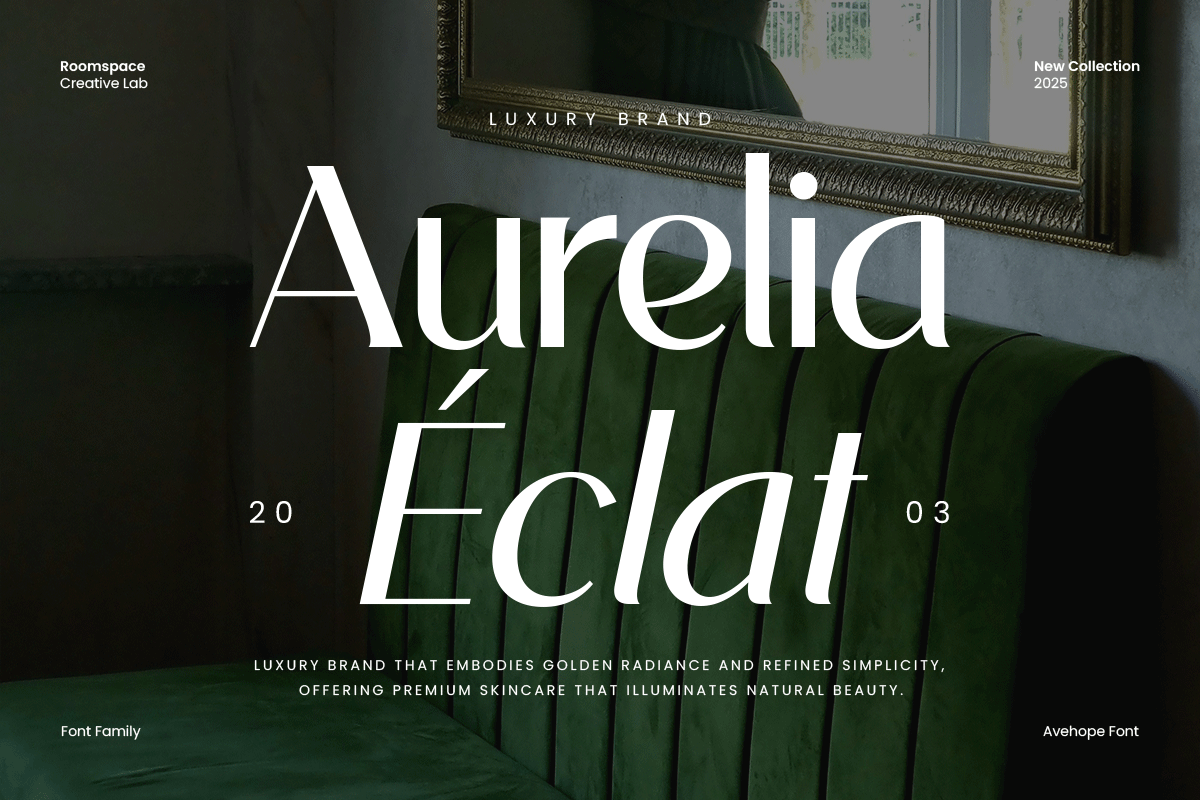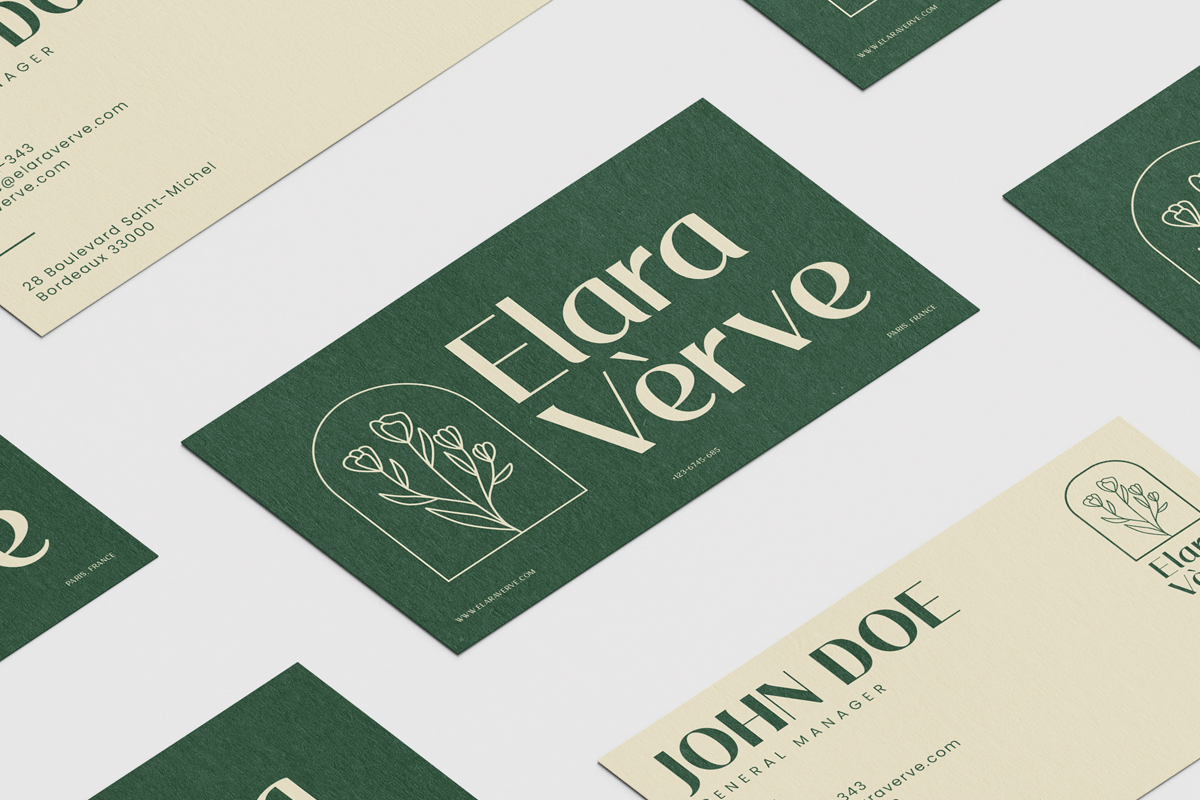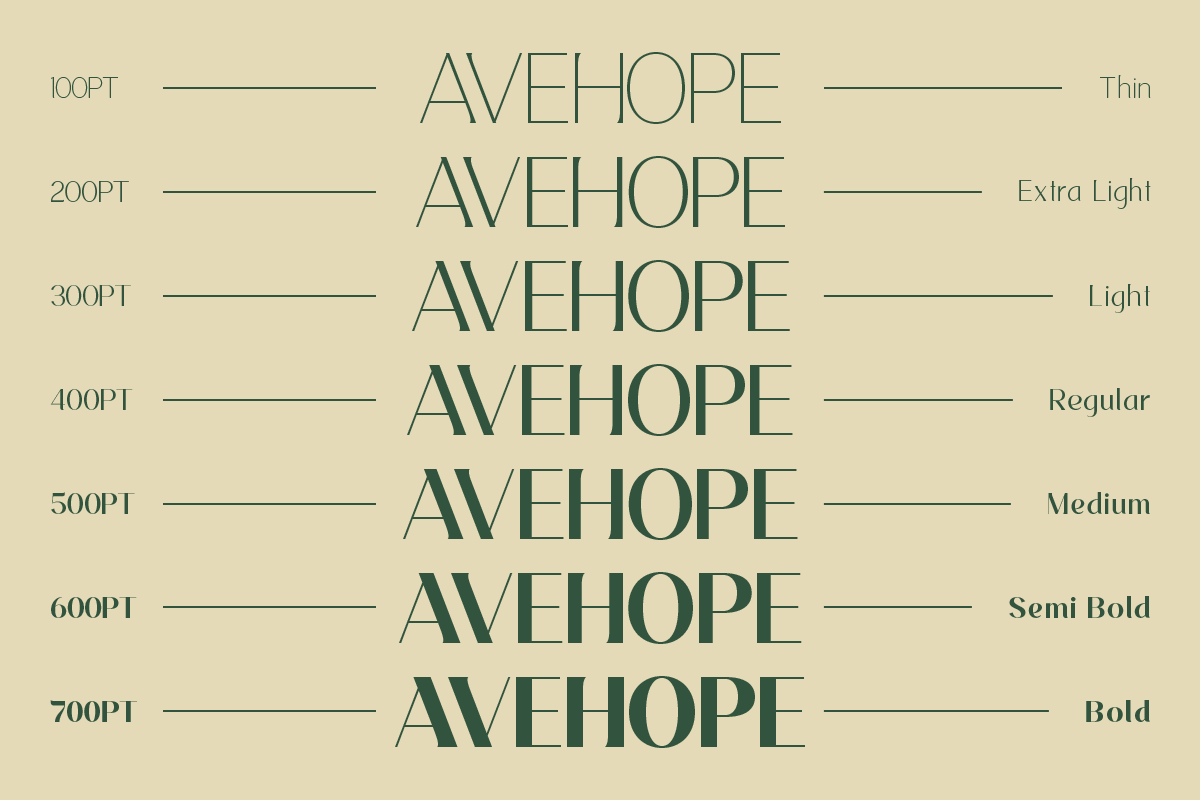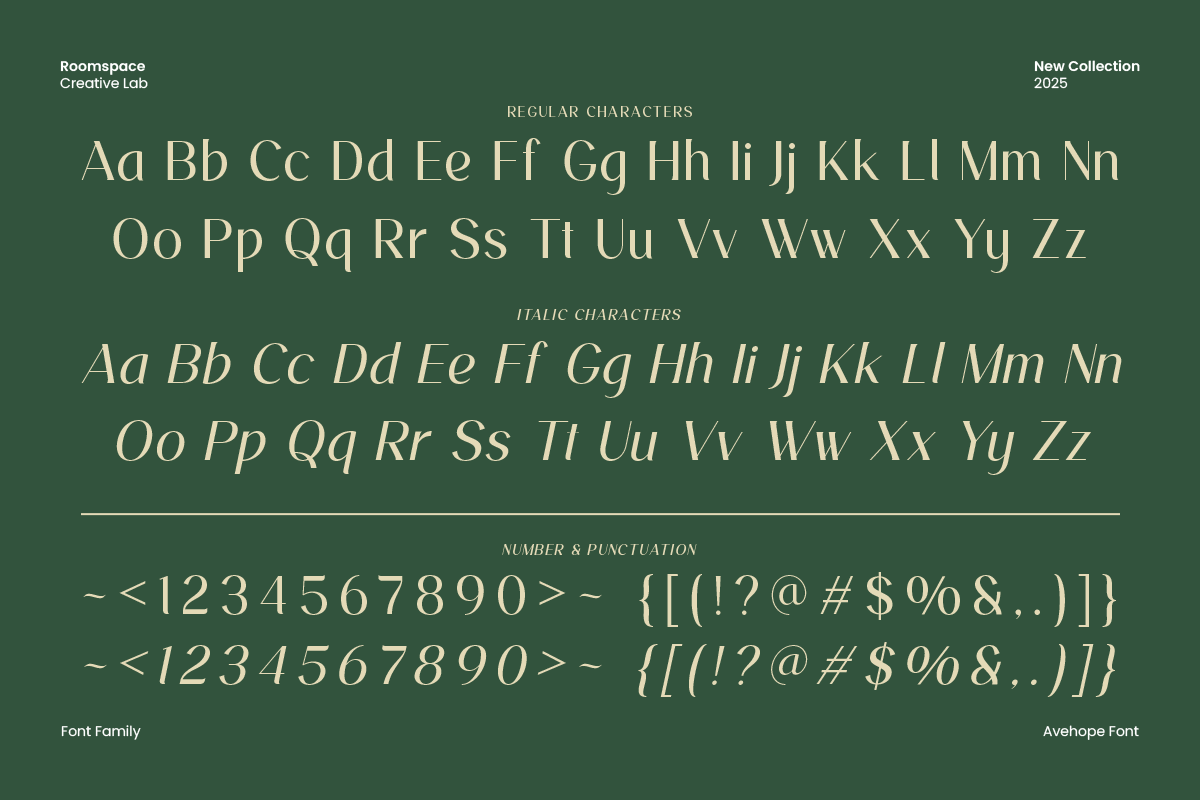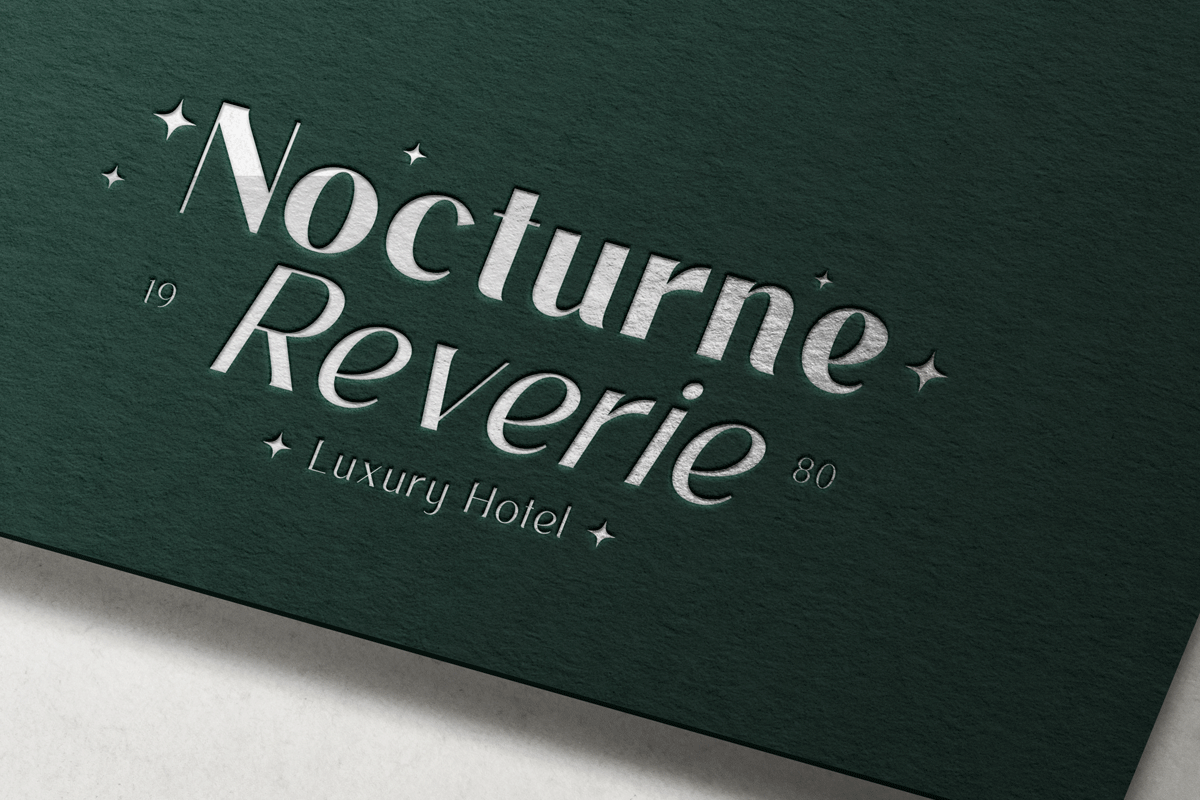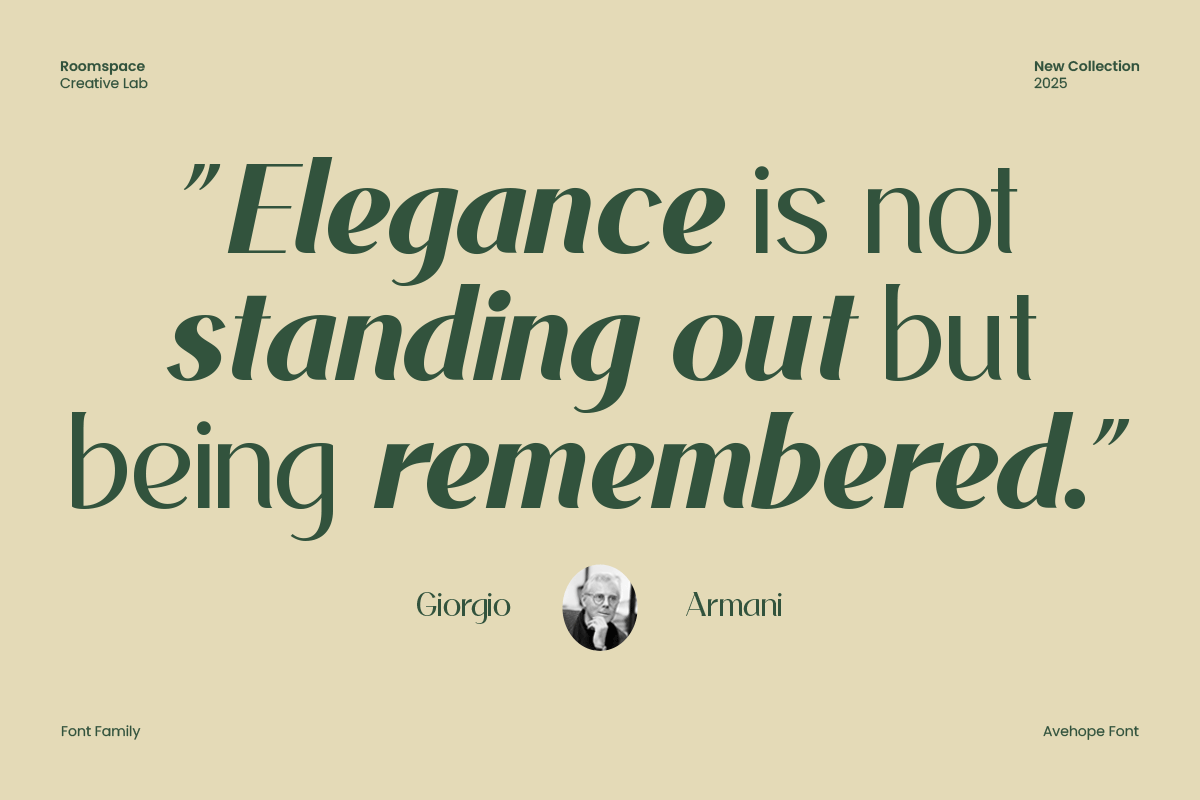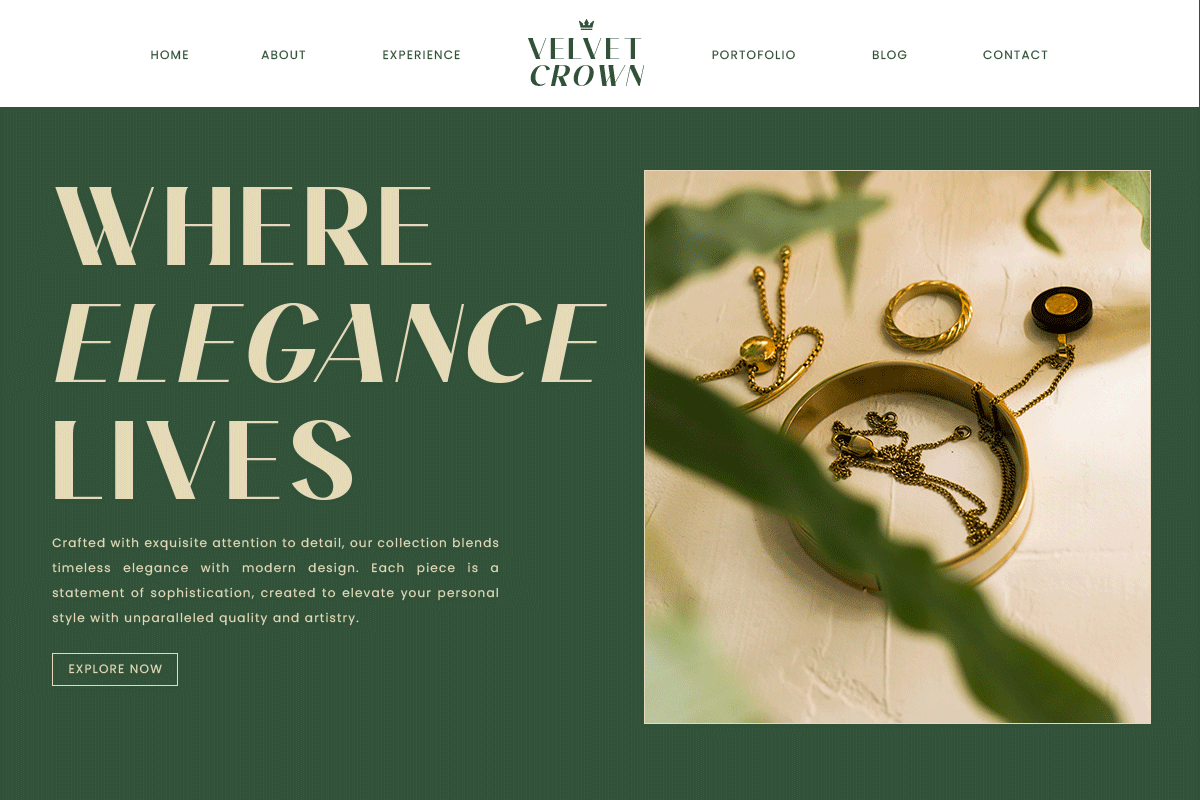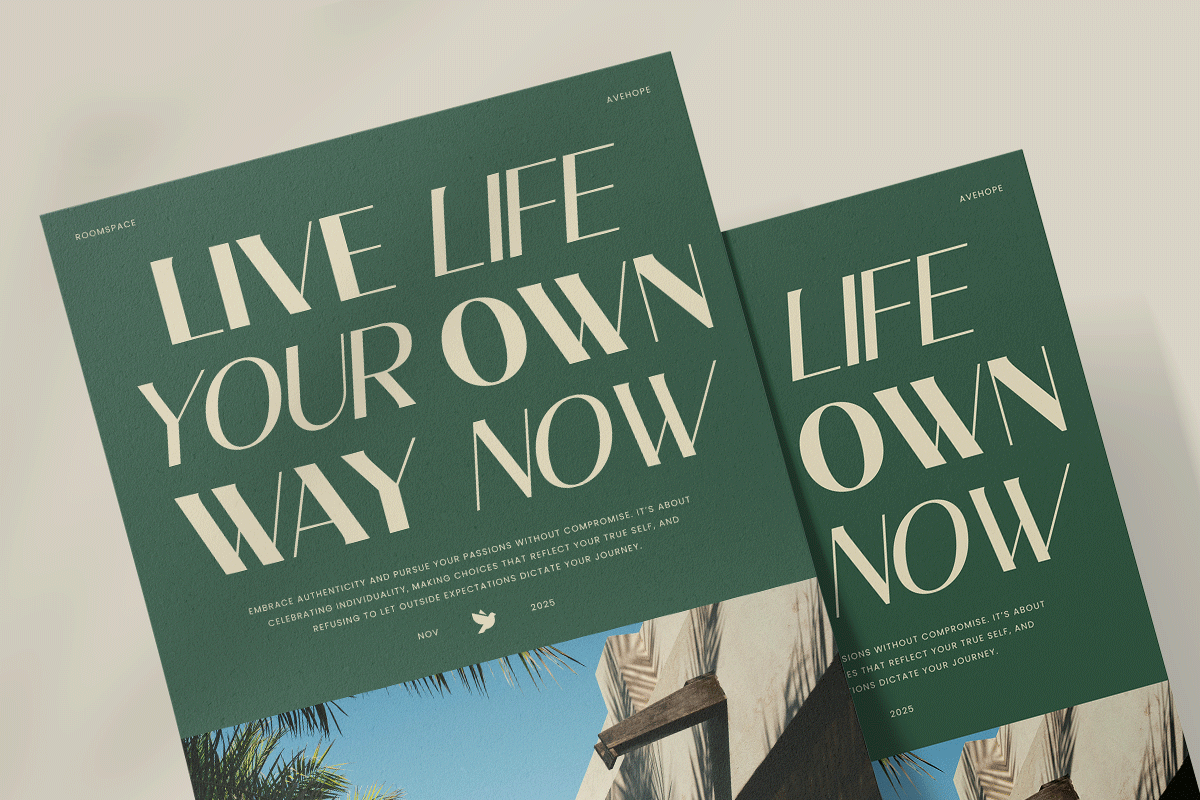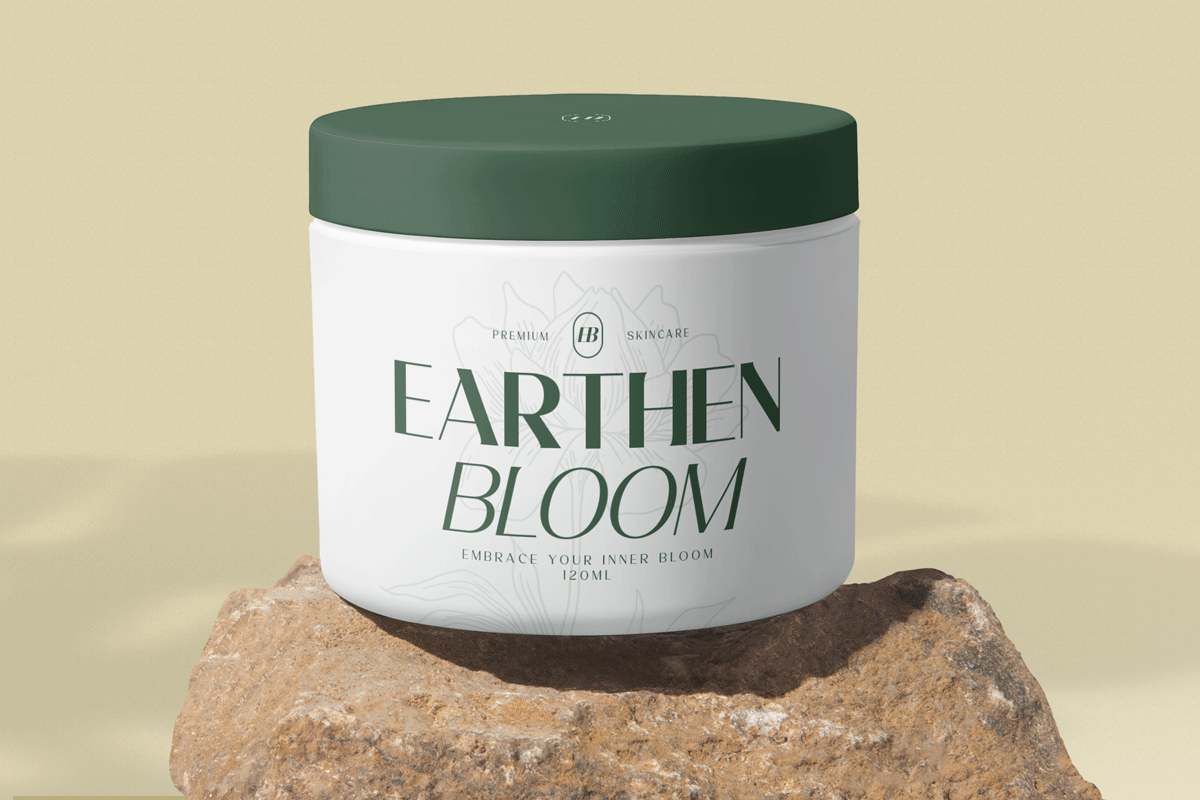
Avehope – A Modern Geometric Sans
Avehope Sans is a geometric sans-serif font family that combines clean shapes with modern sophistication. With 14 fonts in total, this typeface is built to bring elegance and precision to every layout. From corporate identities to minimalist websites, Avehope Sans adapts beautifully to modern design trends while keeping your visuals professional and timeless.
- 14 Fonts (7 Weights + Italic)
- Geometric sans-serif design